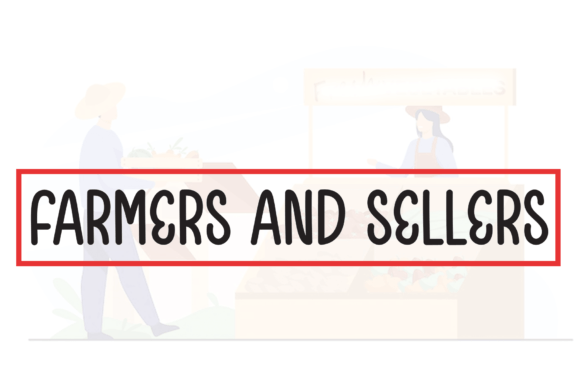
Welcome to the Farmers and Sellers Font Family, an enchanting ensemble of script fonts specially crafted to grace your modern websites with a touch of whimsy and charm. Step into the world of Farmers and Sellers, where creativity blooms and your designs come alive with a unique, handwritten flair.
Immerse yourself in the beauty of Farmers and Sellers, a font family born from the heart of William Jhrordy, a master of typography. Each letter, meticulously crafted with love, exudes a sense of warmth and authenticity that will leave an unforgettable impression on your audience.
Farmers and Sellers is not just a collection of fonts; it's an experience. Each stroke, every curve, and every glyph is designed to evoke emotions, spark conversations, and create lasting connections. Whether you're a seasoned designer or just starting, this font family will be your trusty companion, guiding you towards design excellence.
Harnessing the power of Farmers and Sellers on your website is akin to inviting a breath of fresh air into your digital space. Whether you're crafting elegant wedding invitations, personalizing greeting cards, or designing eye-catching logos, Farmers and Sellers will add a touch of enchantment to every project.
With Farmers and Sellers, you'll unlock a world of creative possibilities. Let your imagination run wild as you craft captivating social media posts, design stunning flyers and brochures, or create enchanting posters that leave a lasting impression. The possibilities are endless, and only limited by your imagination.
So embrace the Farmers and Sellers Font Family, a symphony of beauty and elegance that will elevate your designs and leave your audience captivated. Join the ranks of savvy designers and businesses who have discovered the transformative power of Farmers and Sellers and unlock the full potential of your creative endeavors.